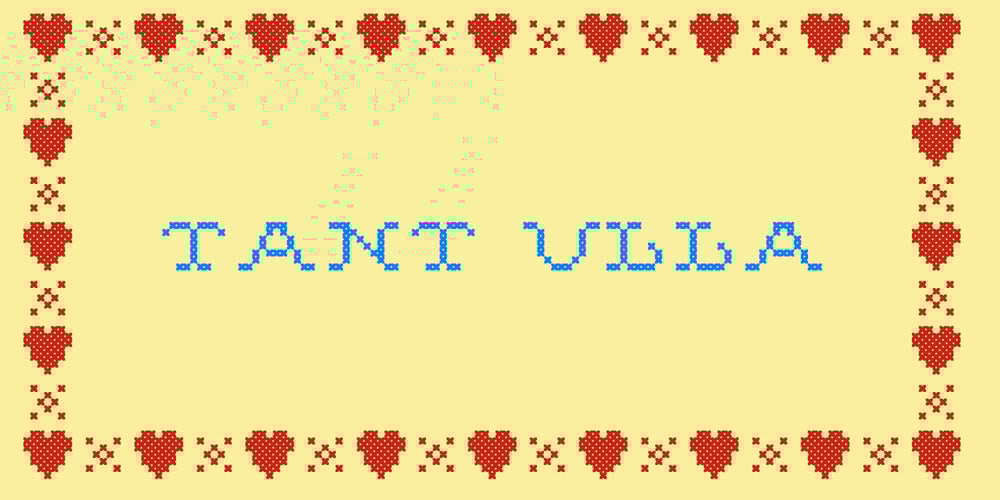
Tant Ulla Font Family was designed by Lars Törnqvist and published by Cercurius. Tant Ulla contains 1 styles and family package options. An expanded caps-only cross-stitch font, based on a mid-20th century embroidery pattern. Use it in large sizes for advertising, posters, greeting cards, etc.